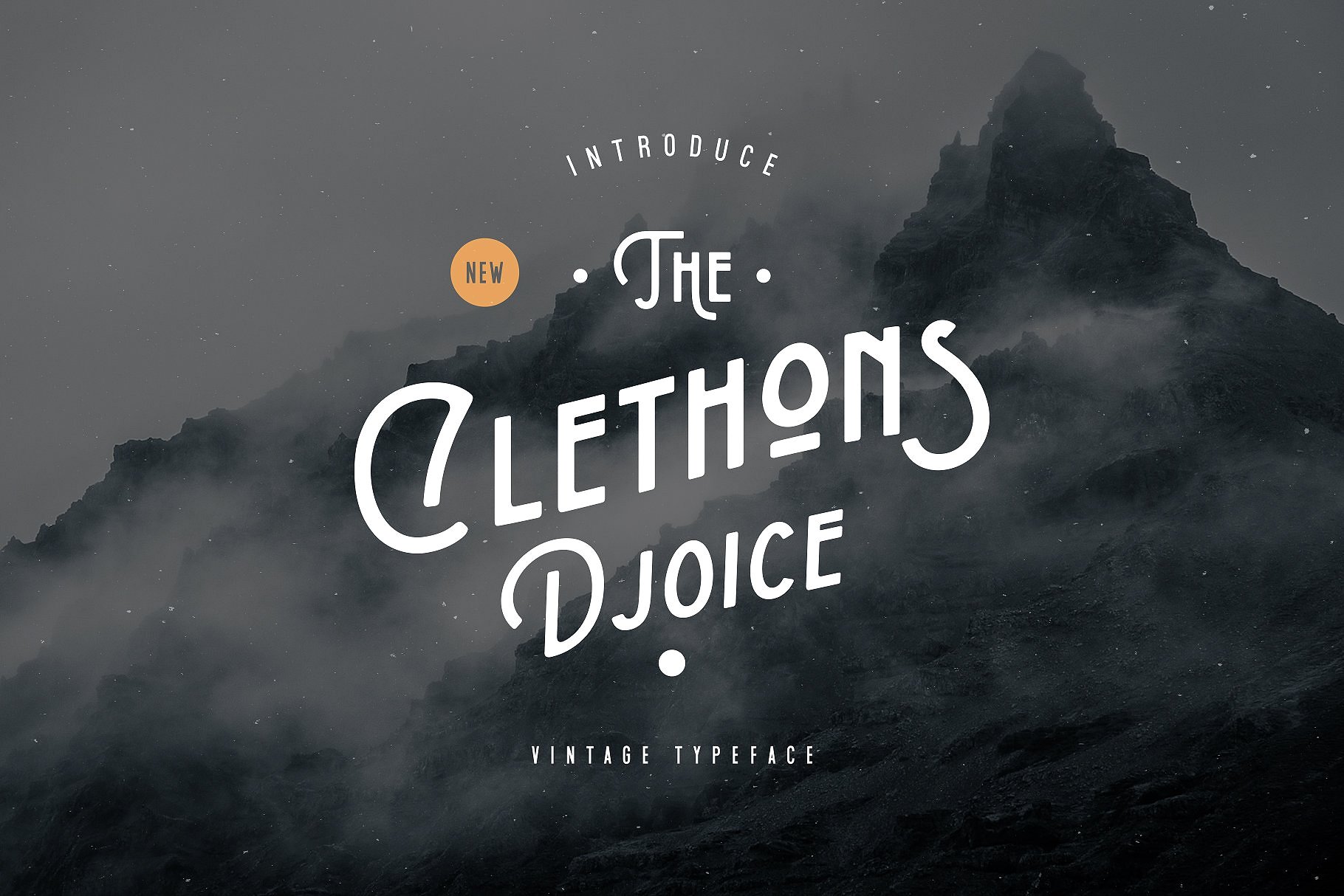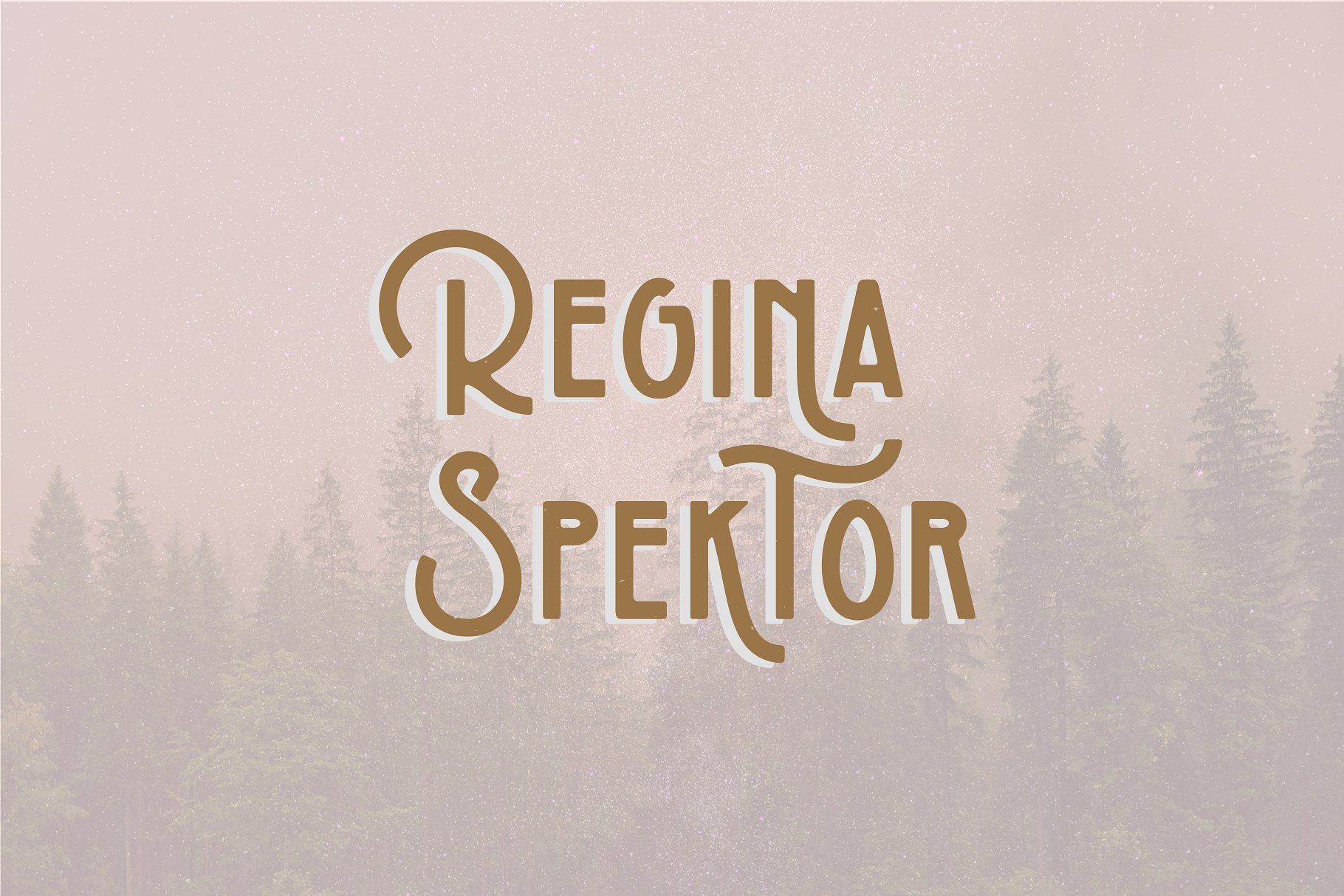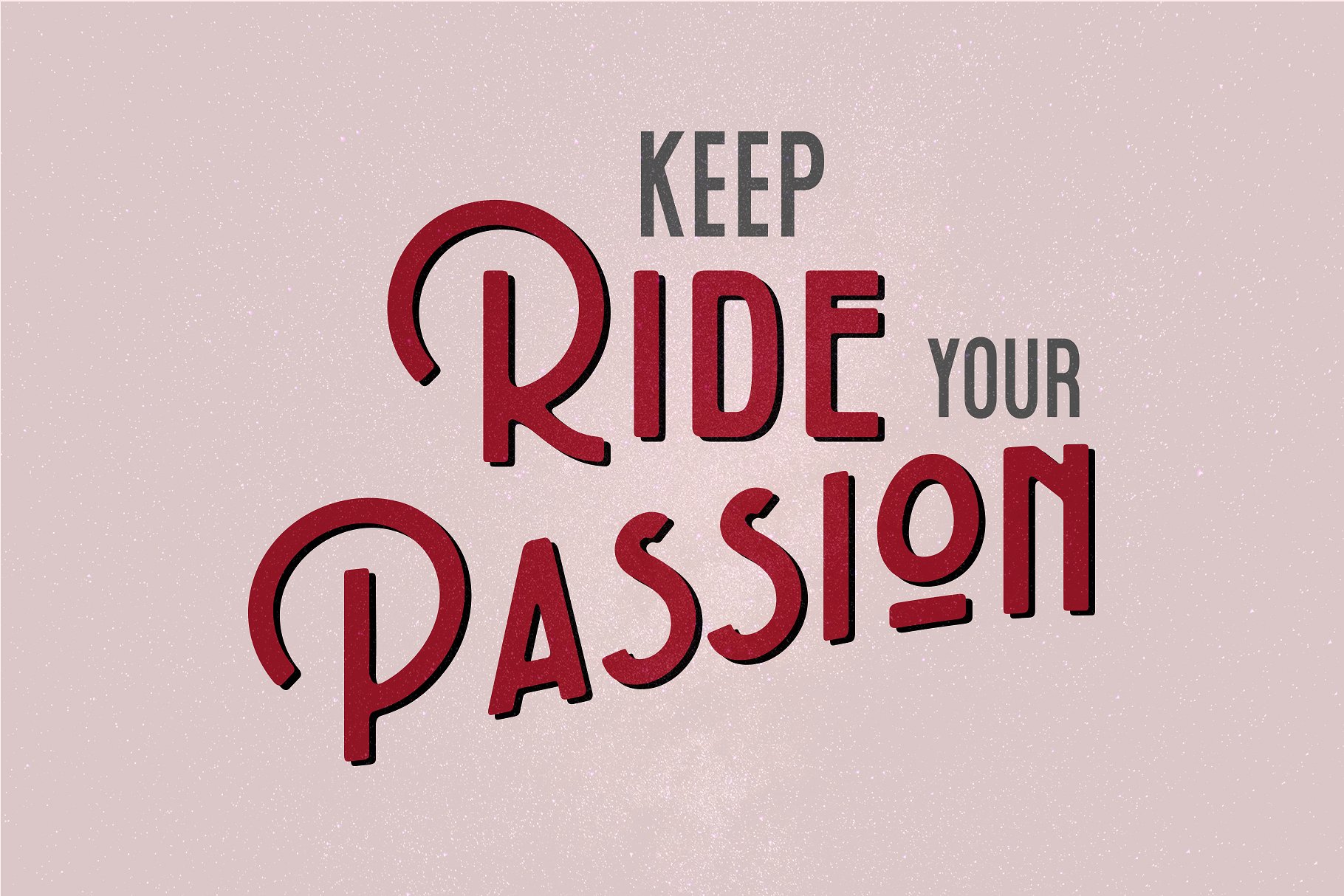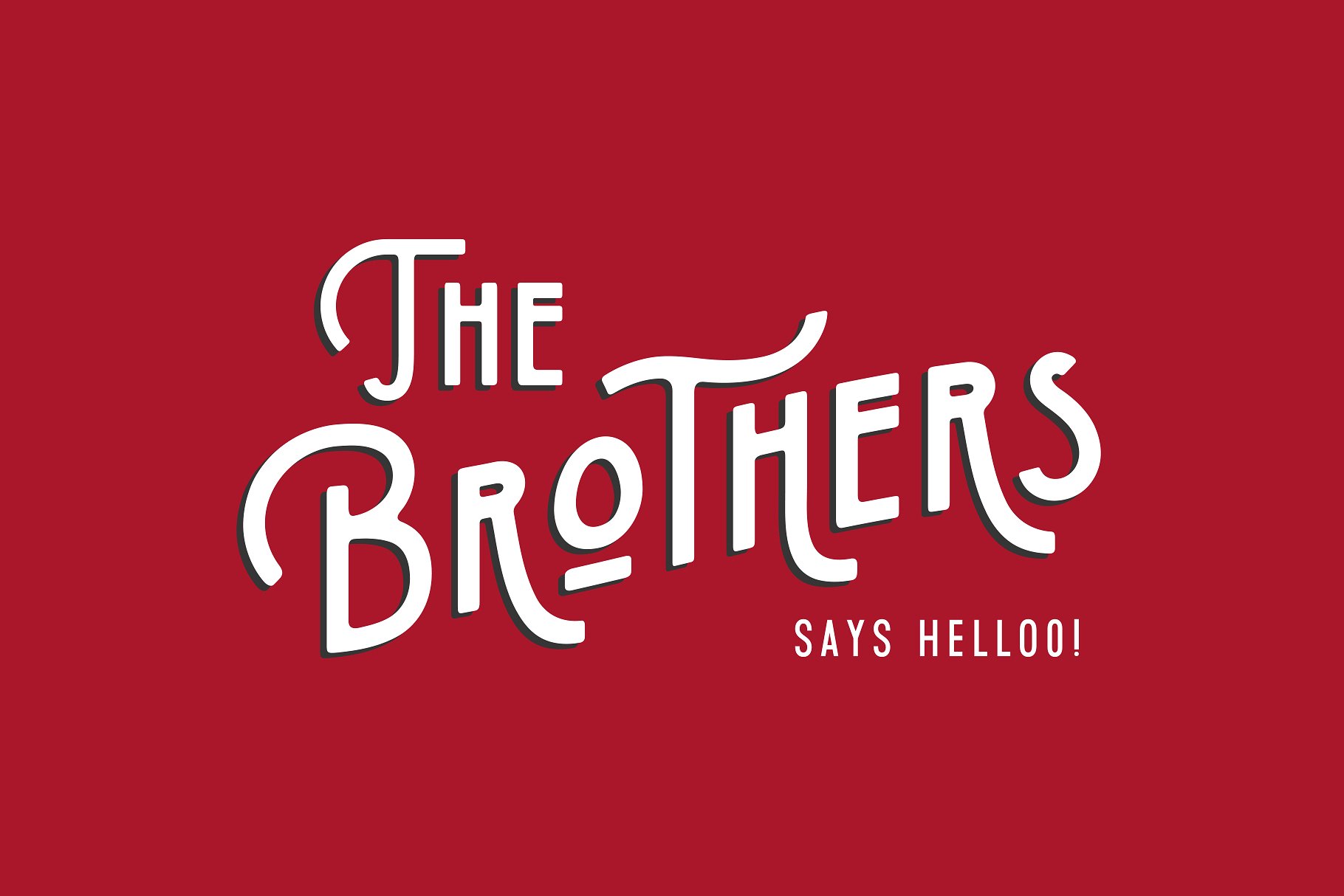
The Clethons Djoice Typeface
Introducing Clethons Djoice Font. It is designed by cob, this is a premium font, are sold on creativemarket, but it was great, it is free today for download. The Clethons Djoice Typeface is a Vintage typeface for typography, lettering, logotype and more, +200 smooth glyphs have been added with Opentype Features included with free varche sans it’s make perfect combine to create Elegant Design, Modern, Vintage, Retro and more.